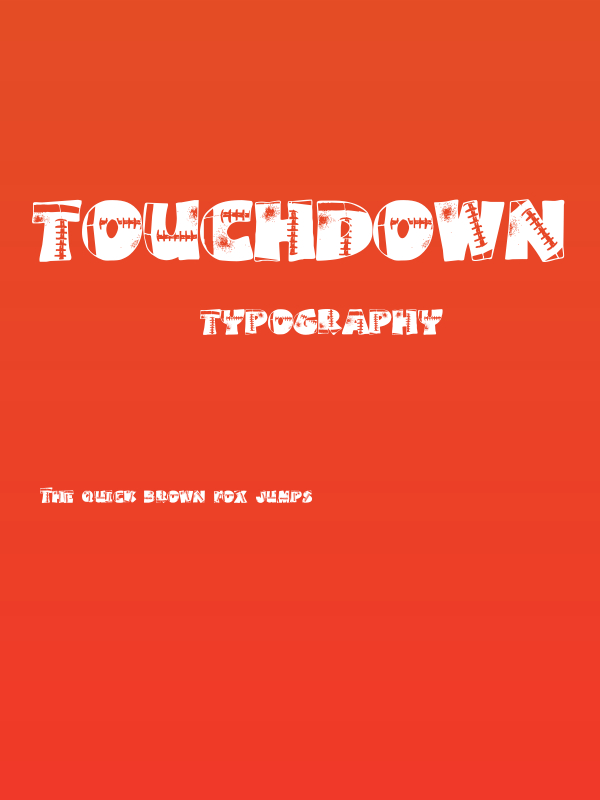
Touchdown Font
Touchdown Description
This font features a bold, playful design with a sports theme, reminiscent of footballs with stitching details incorporated into each letter. The uppercase letters are robust and dynamic, conveying a sense of movement and energy. The font's unique style makes it ideal for sports-related projects, adding a touch of excitement and vigor. The characters are well-defined, with a consistent thickness that ensures readability while maintaining a decorative flair. The design is perfect for creating eye-catching headlines and logos that need to stand out with a sporty, energetic vibe.
| Proposed Projects | Ideal for sports team branding, event posters, and athletic apparel designs. |